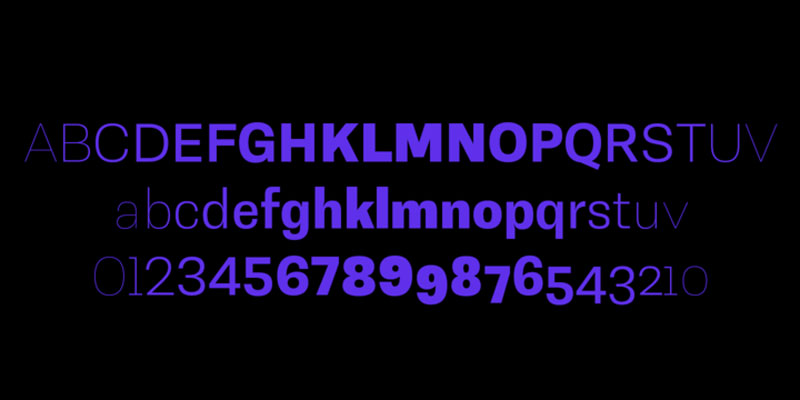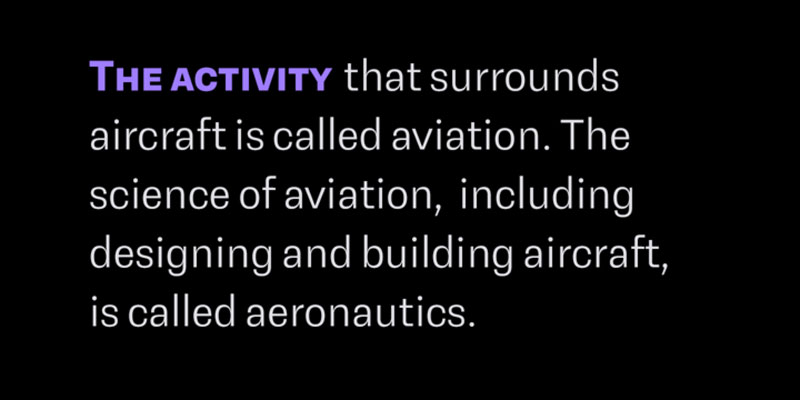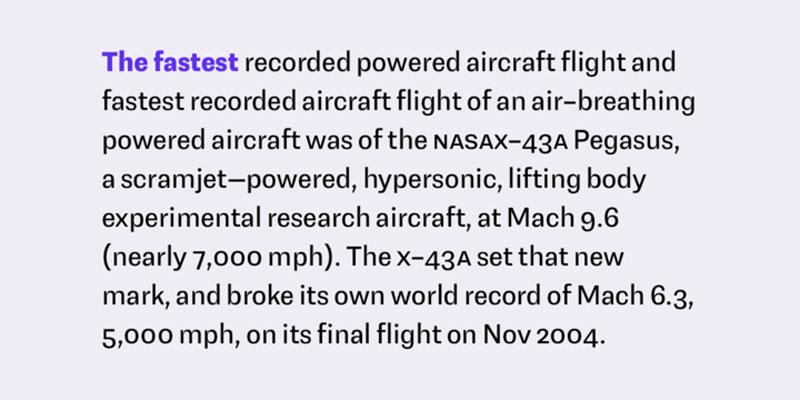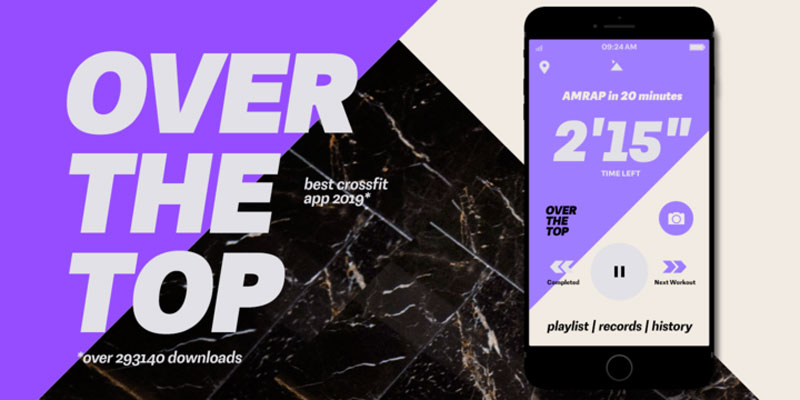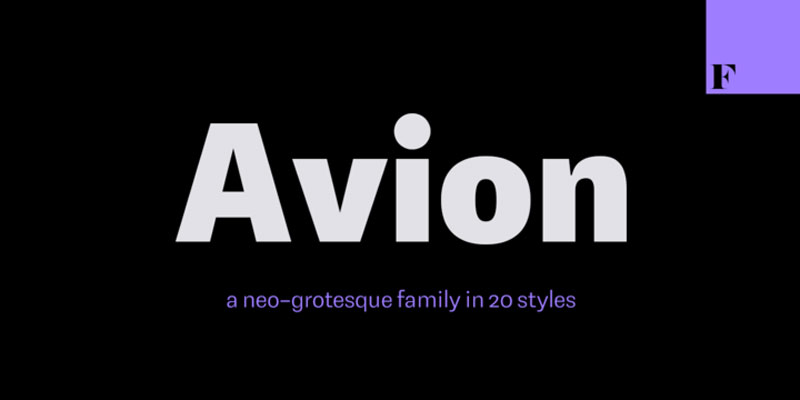
Avion Font Family
Avion font family channels those cool modernist vibes yet bring something new to the table.
With a slightly more rectangular approach and some clever detailing, Avion has a distinct look of its own, yet provokes a calming familiarity of neutrality and objectiveness.
Designers: Emil Bertell, Erik Bertell, Teo Tuominen
Publisher: Fenotype